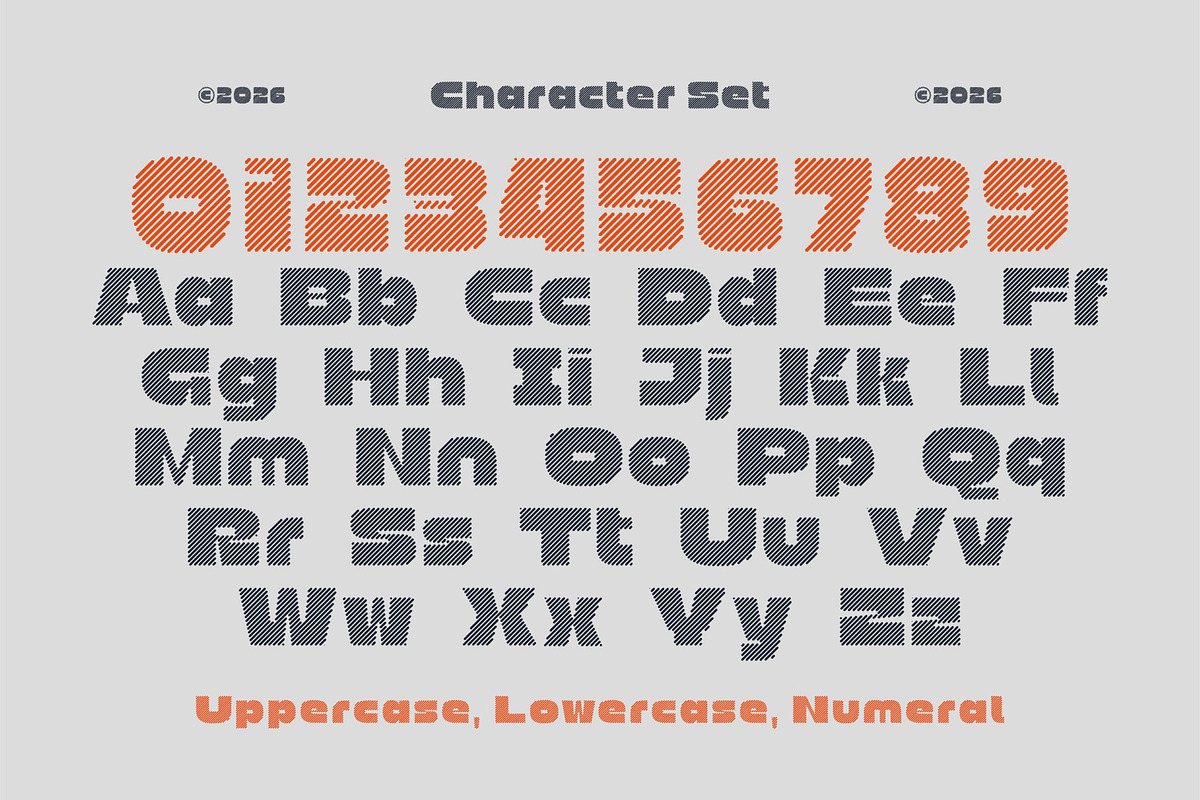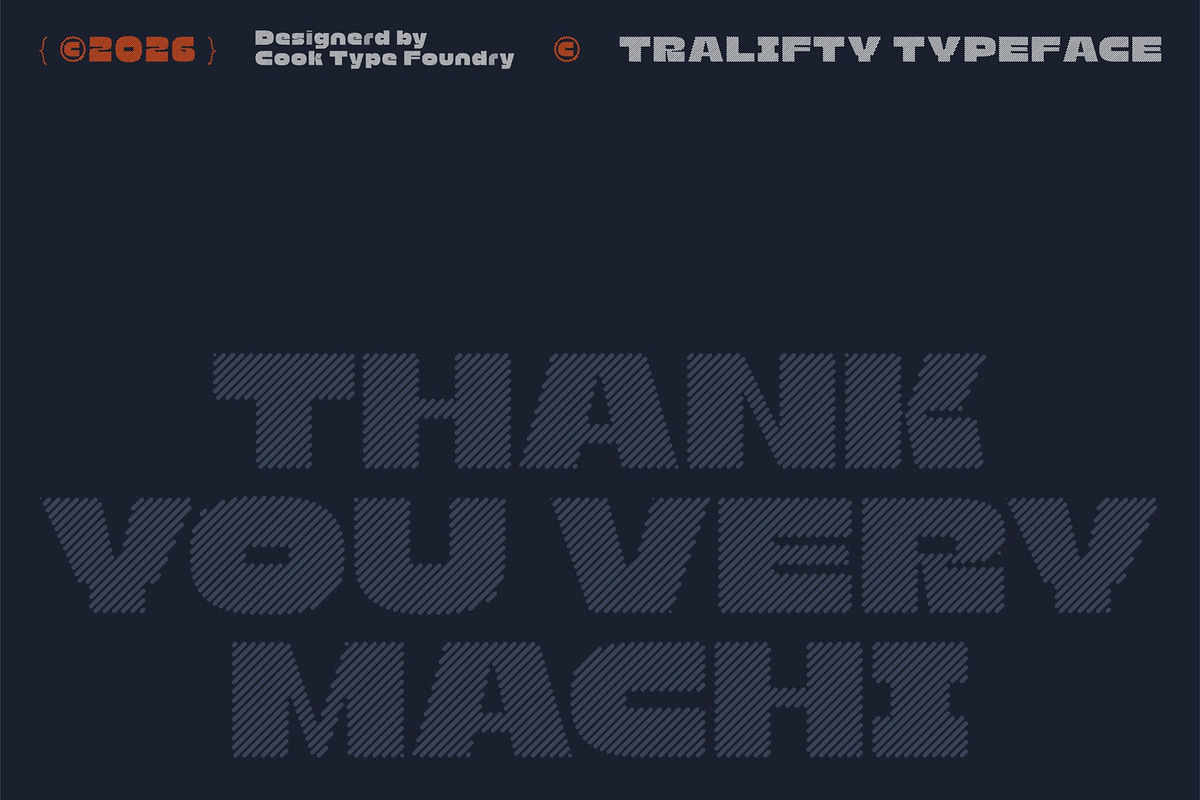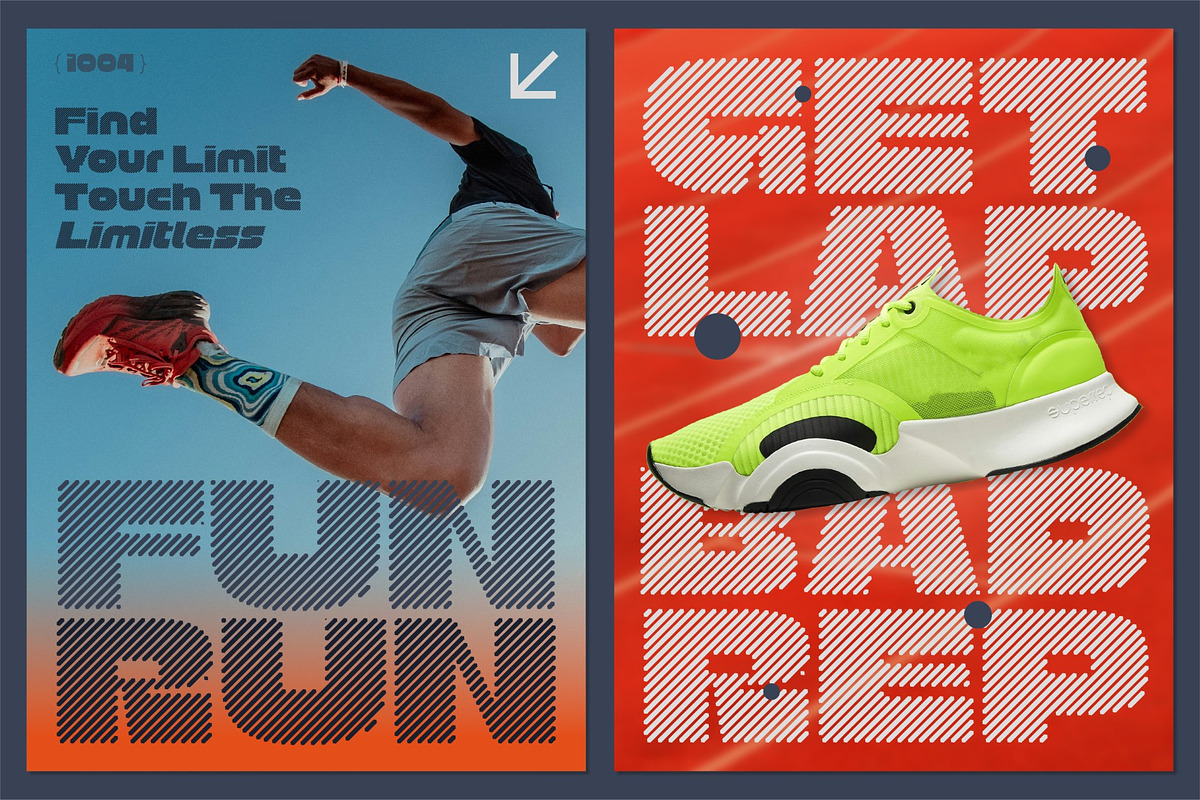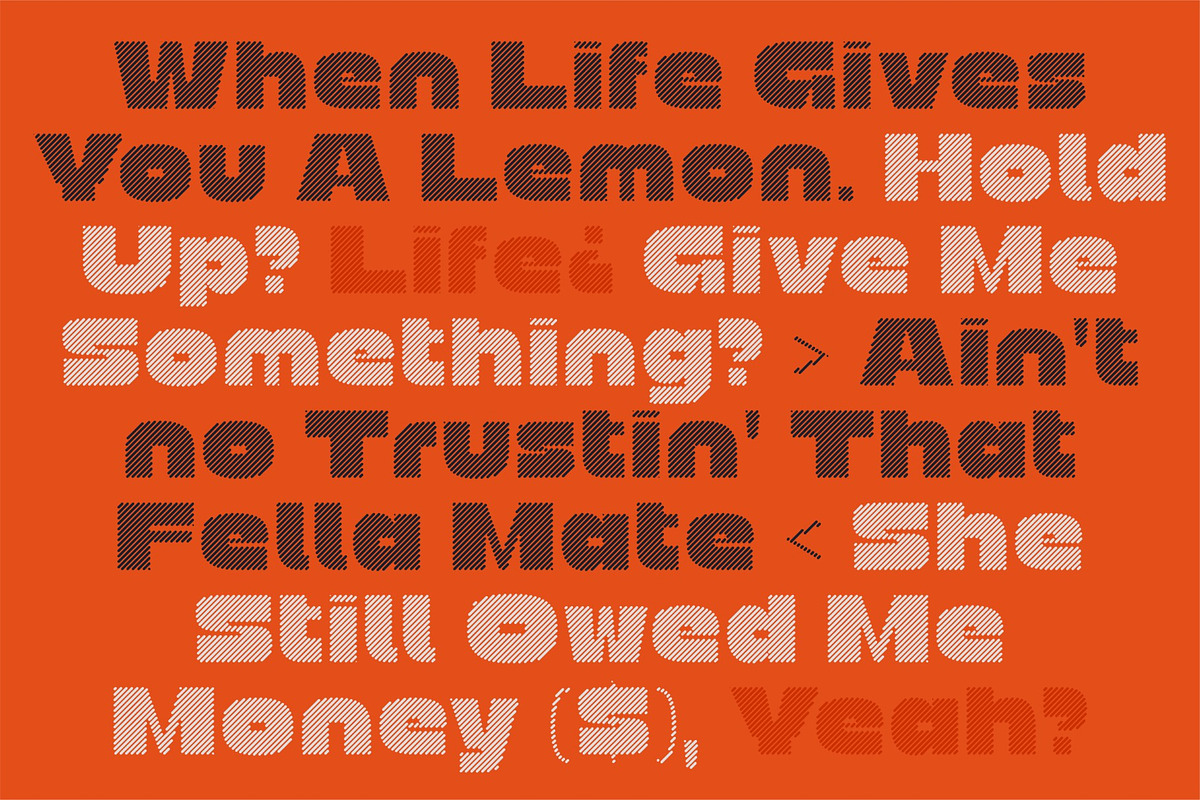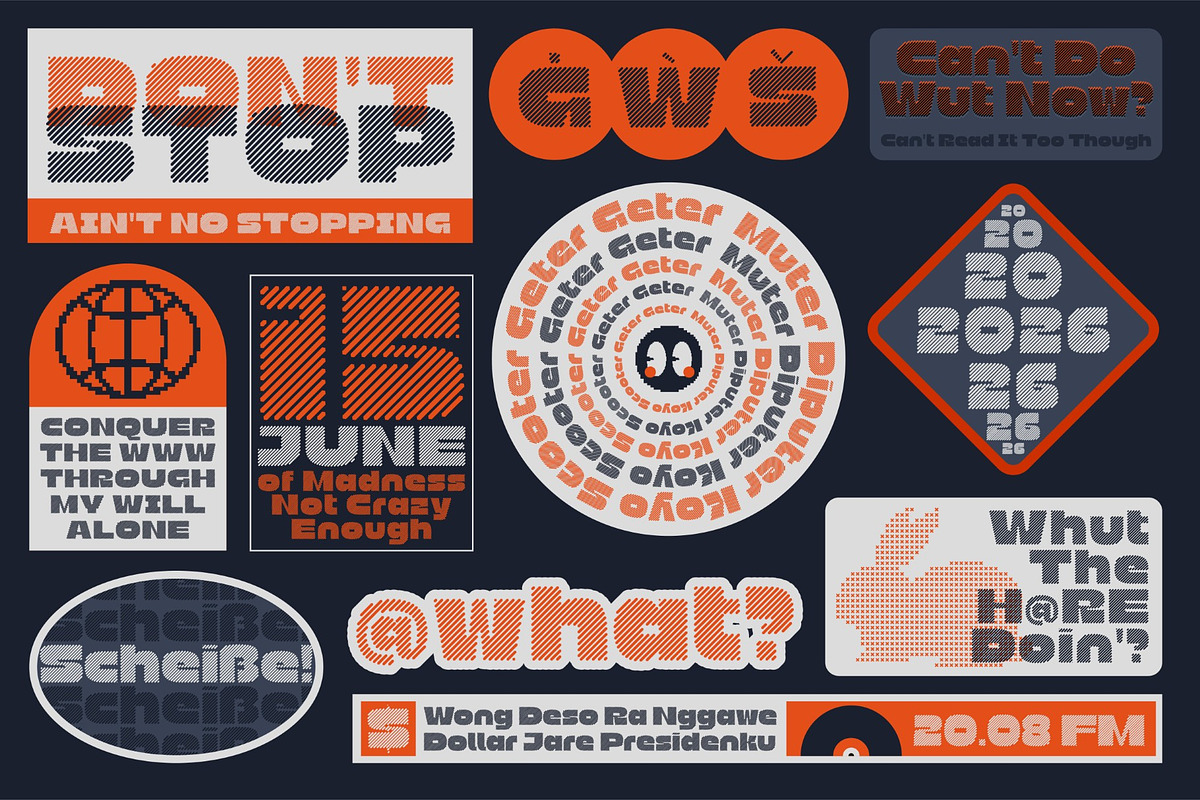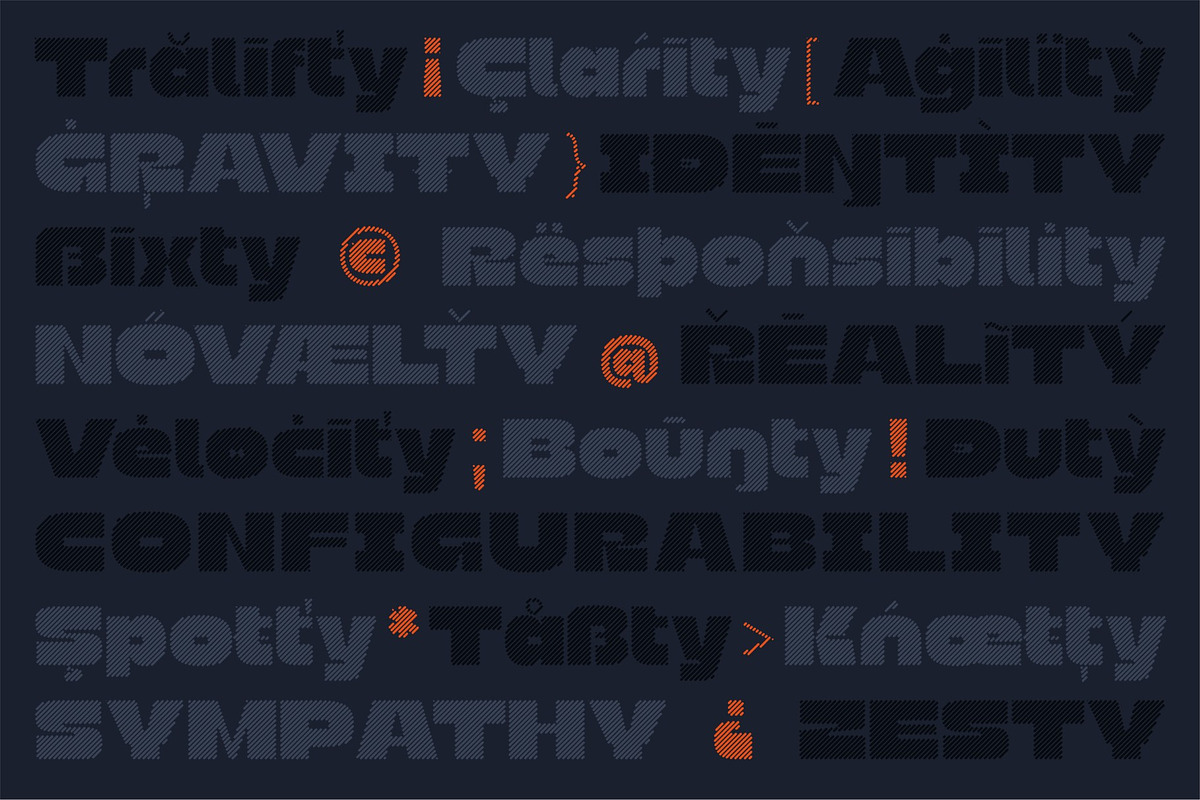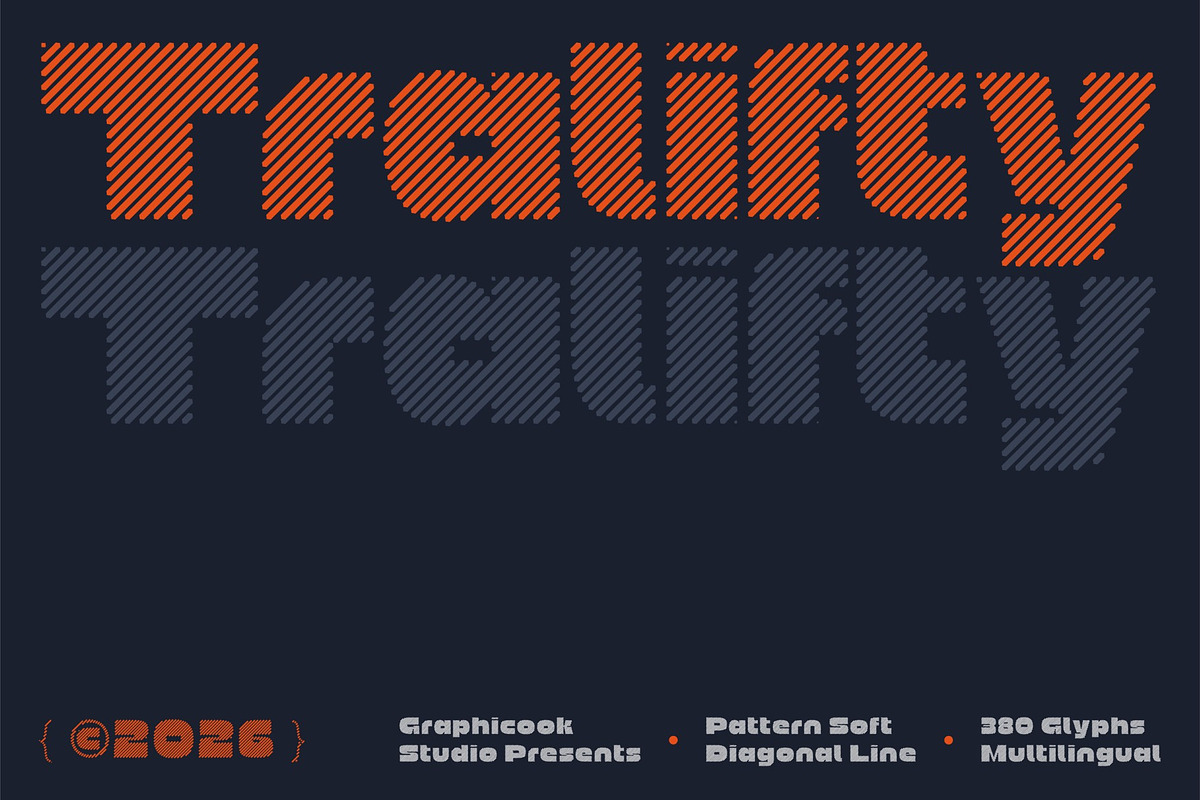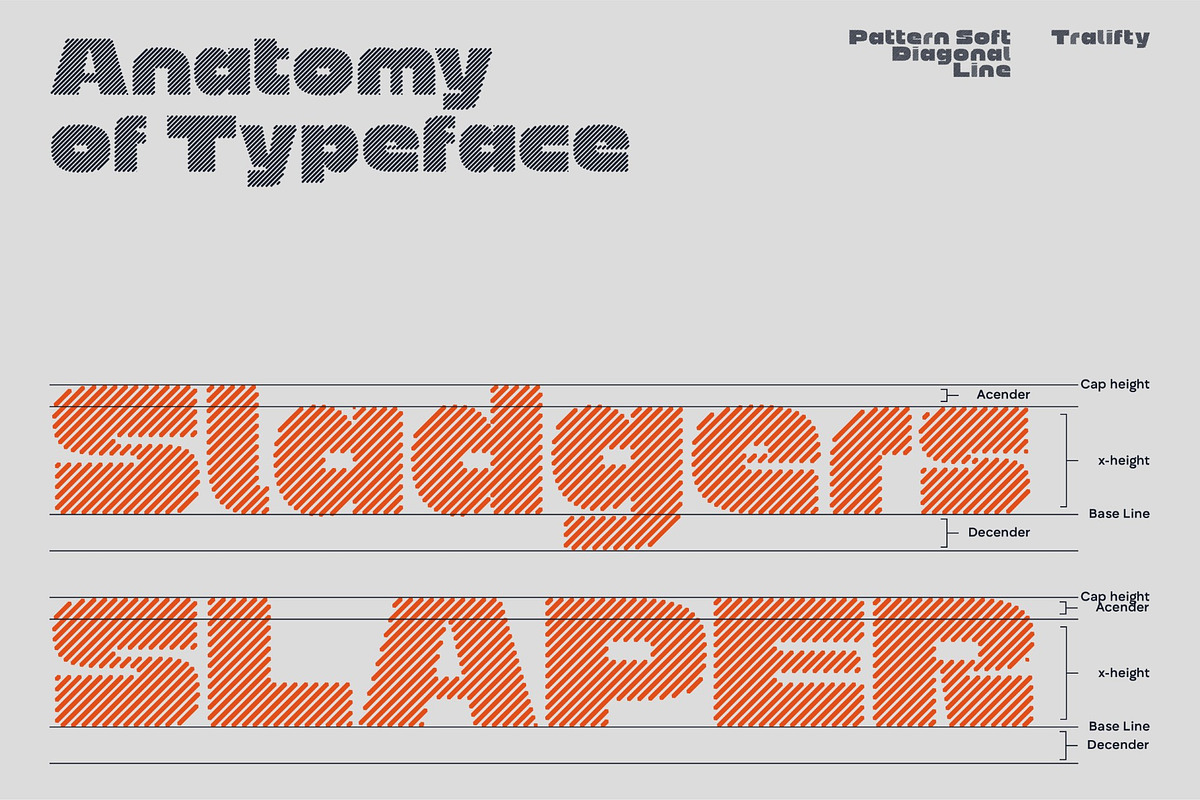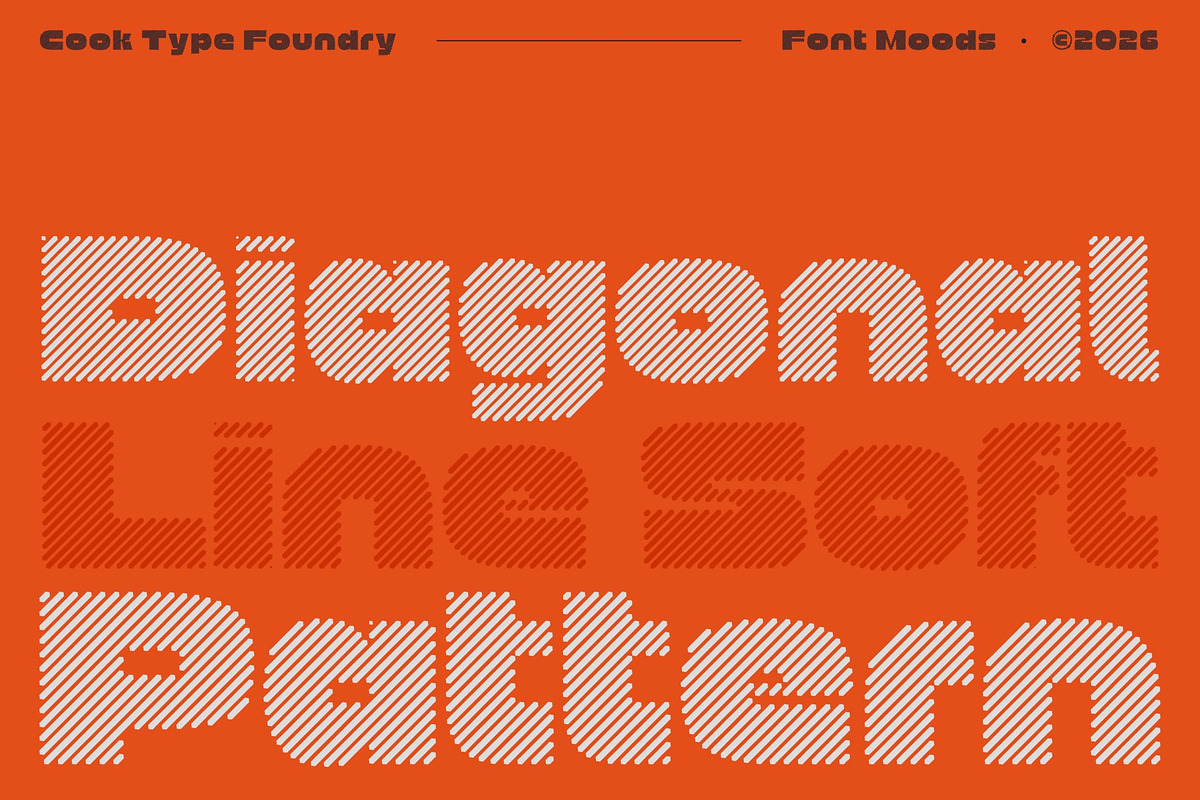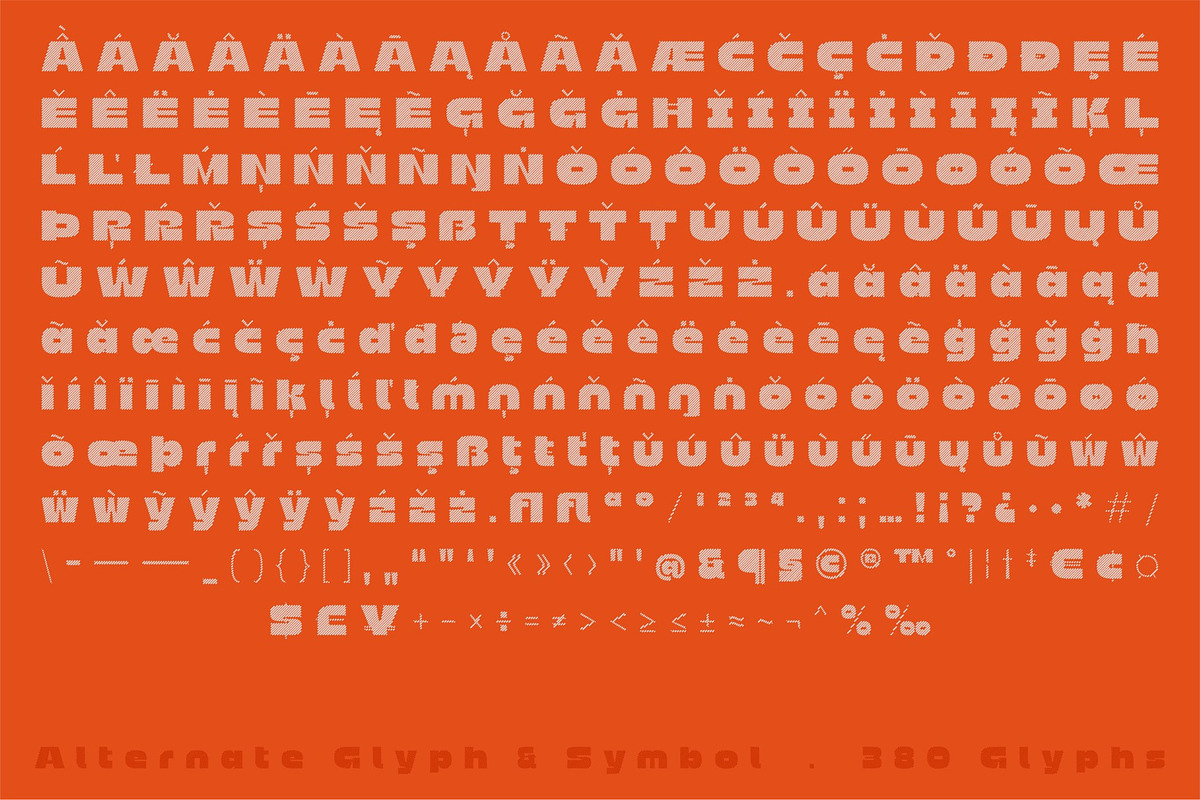
Tralifty
Tralifty is a bold and experimental display typeface featuring a distinctive diagonal-line pattern that gives every character a textured, dimensional appearance. Its chunky letterforms combined with soft diagonal stripe. Tralifty offers plenty of flexibility for both display and decorative typography.
It is perfect for headlines, logotypes, magazines, packaging, quotes, movies, games, cover albums, book covers, and flyers, it's a perfect solution for creating eye-catching designs that stand out in any context.